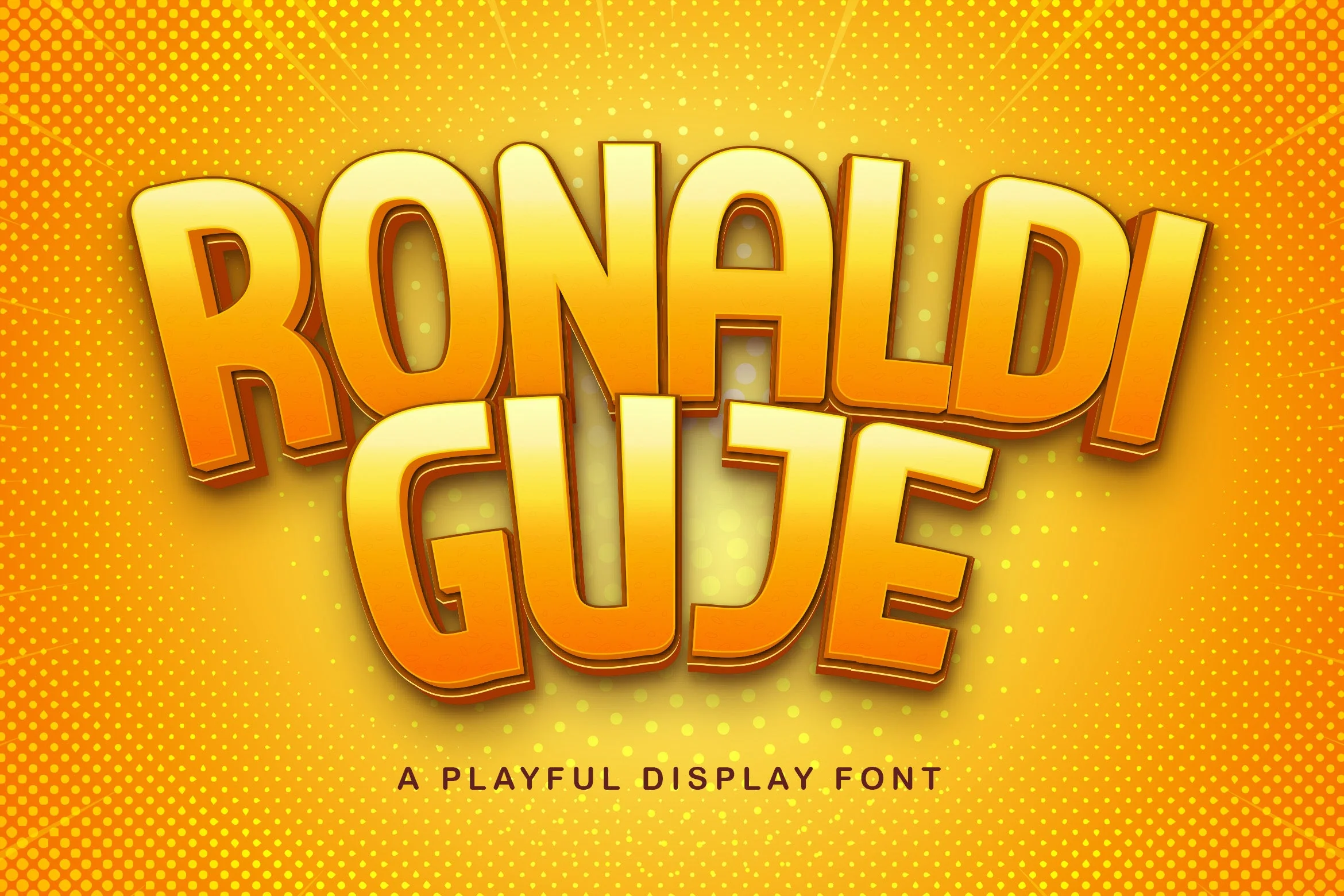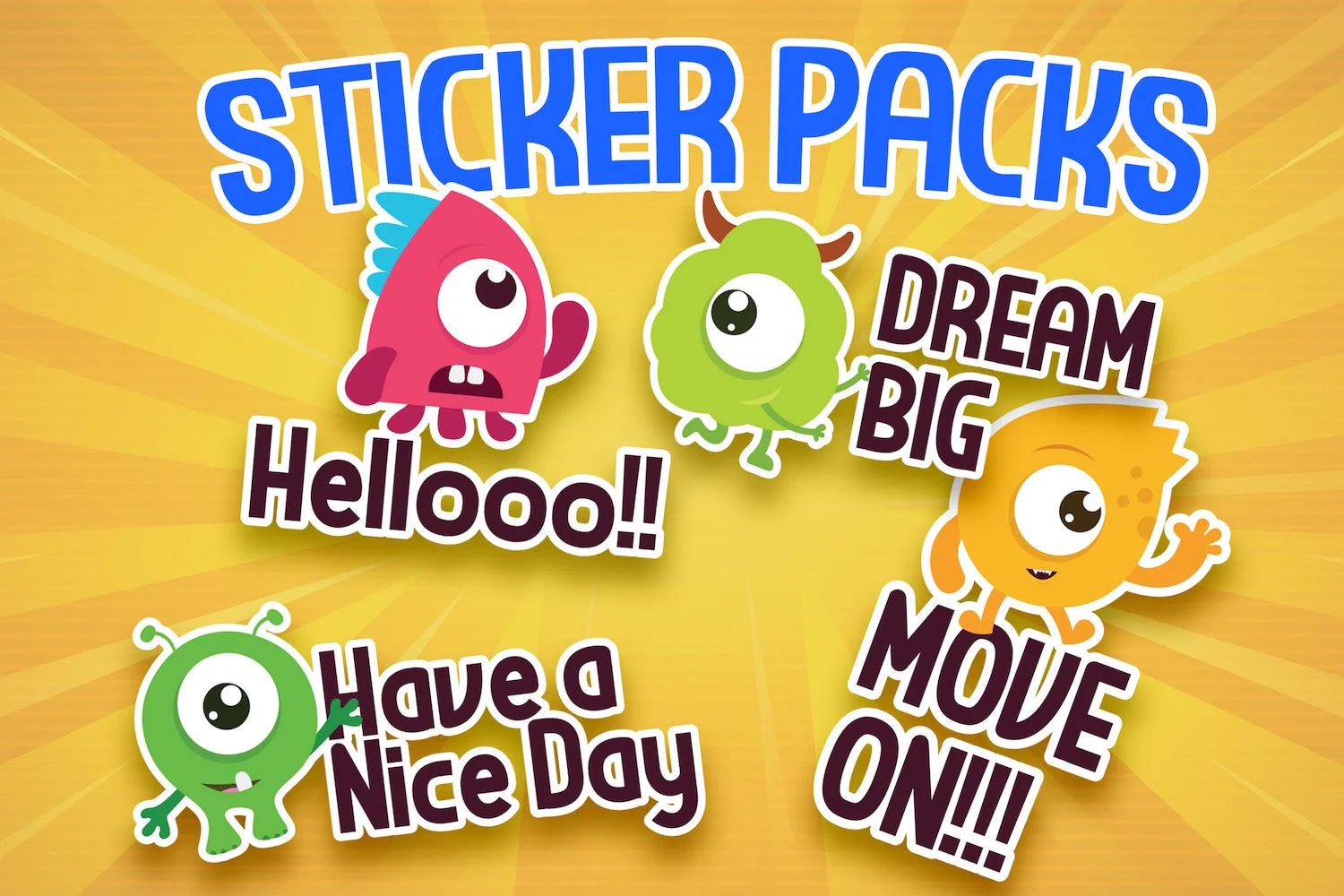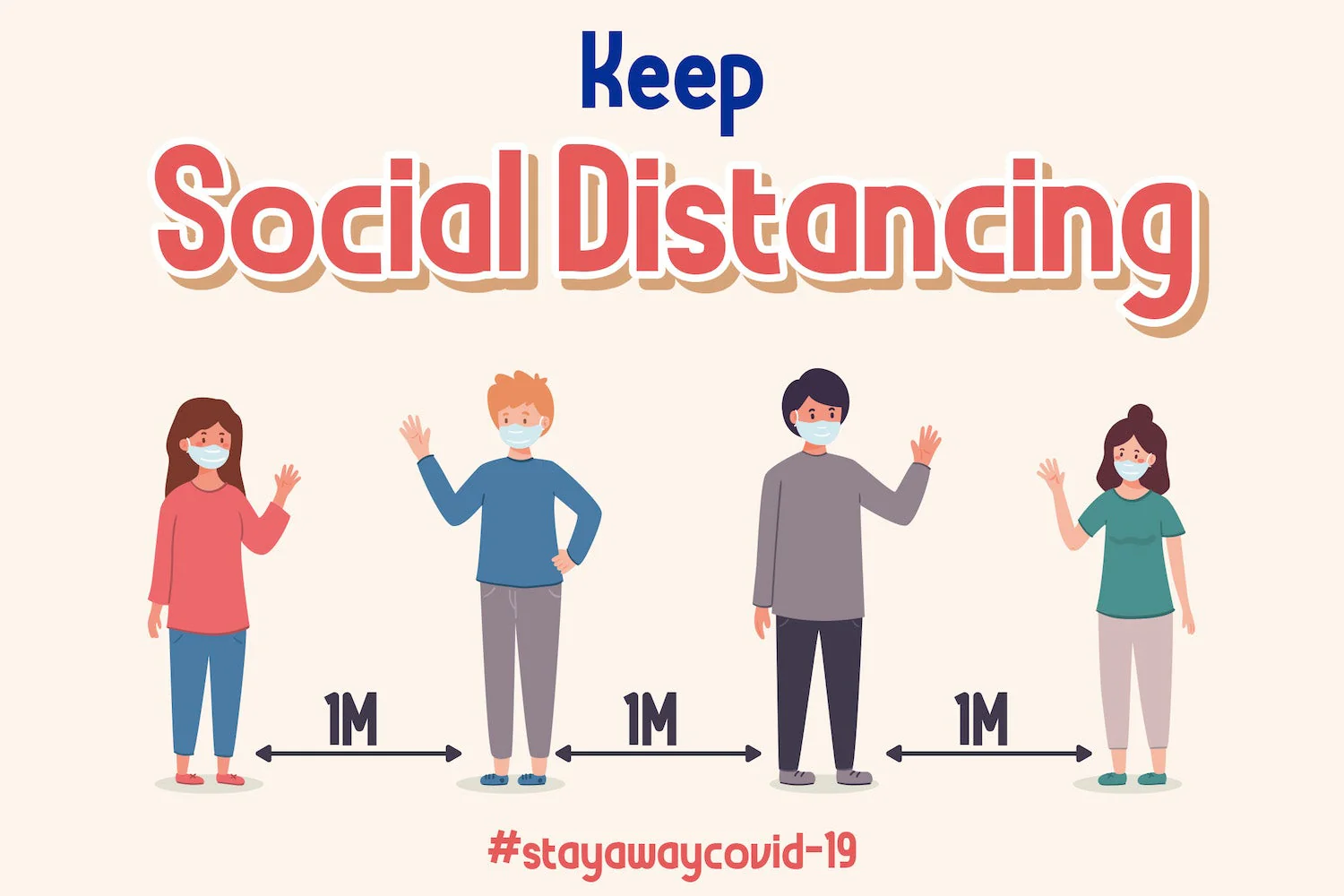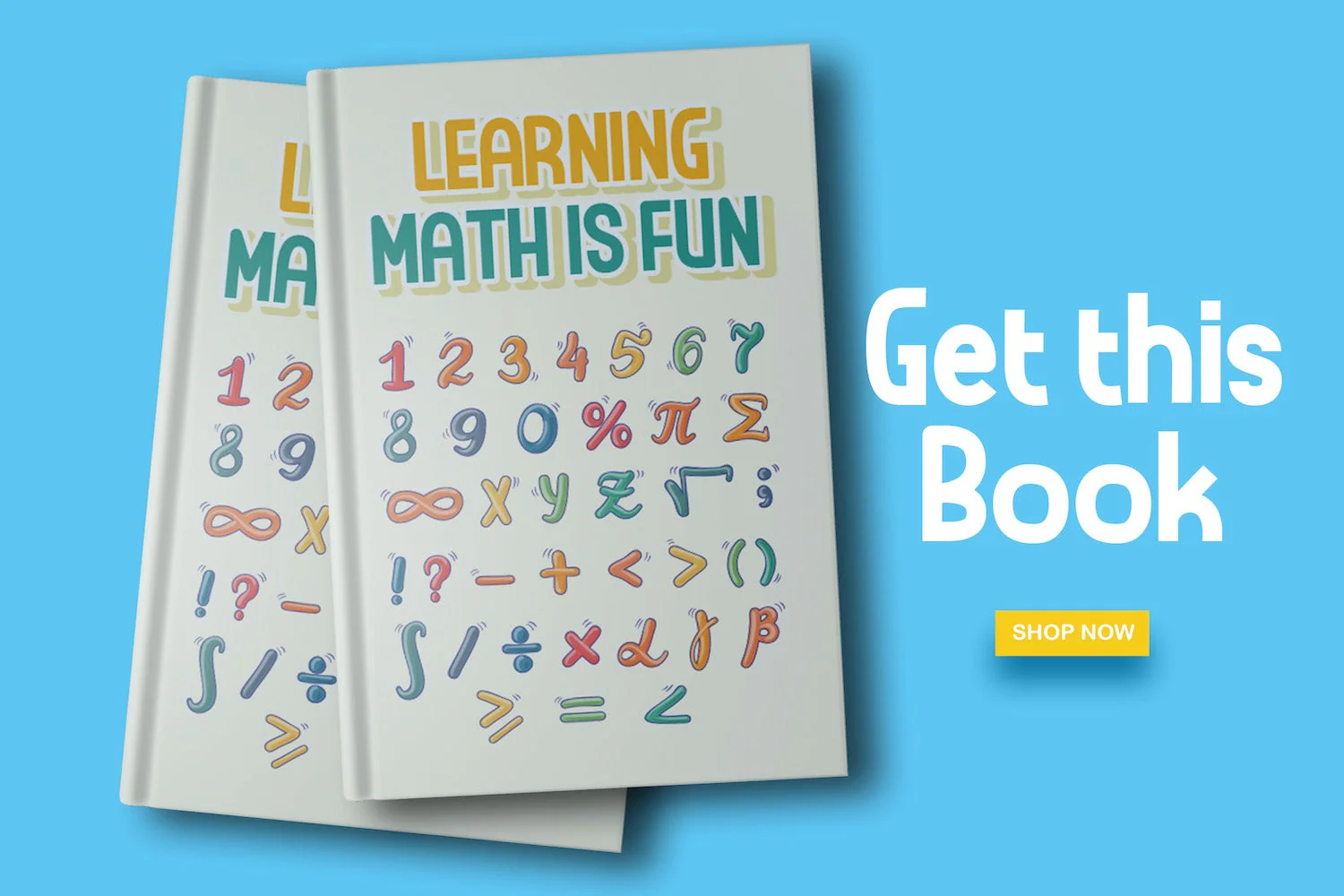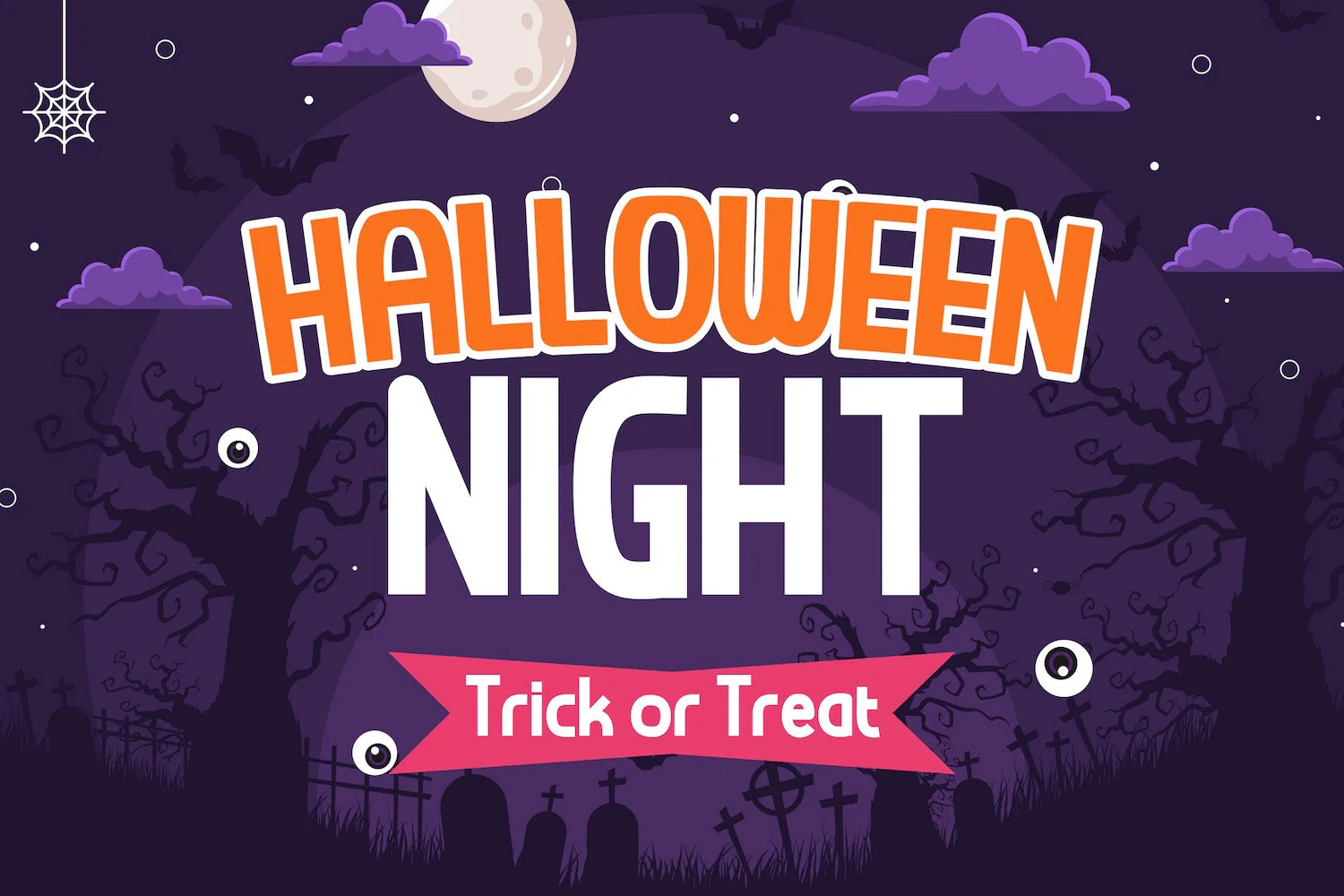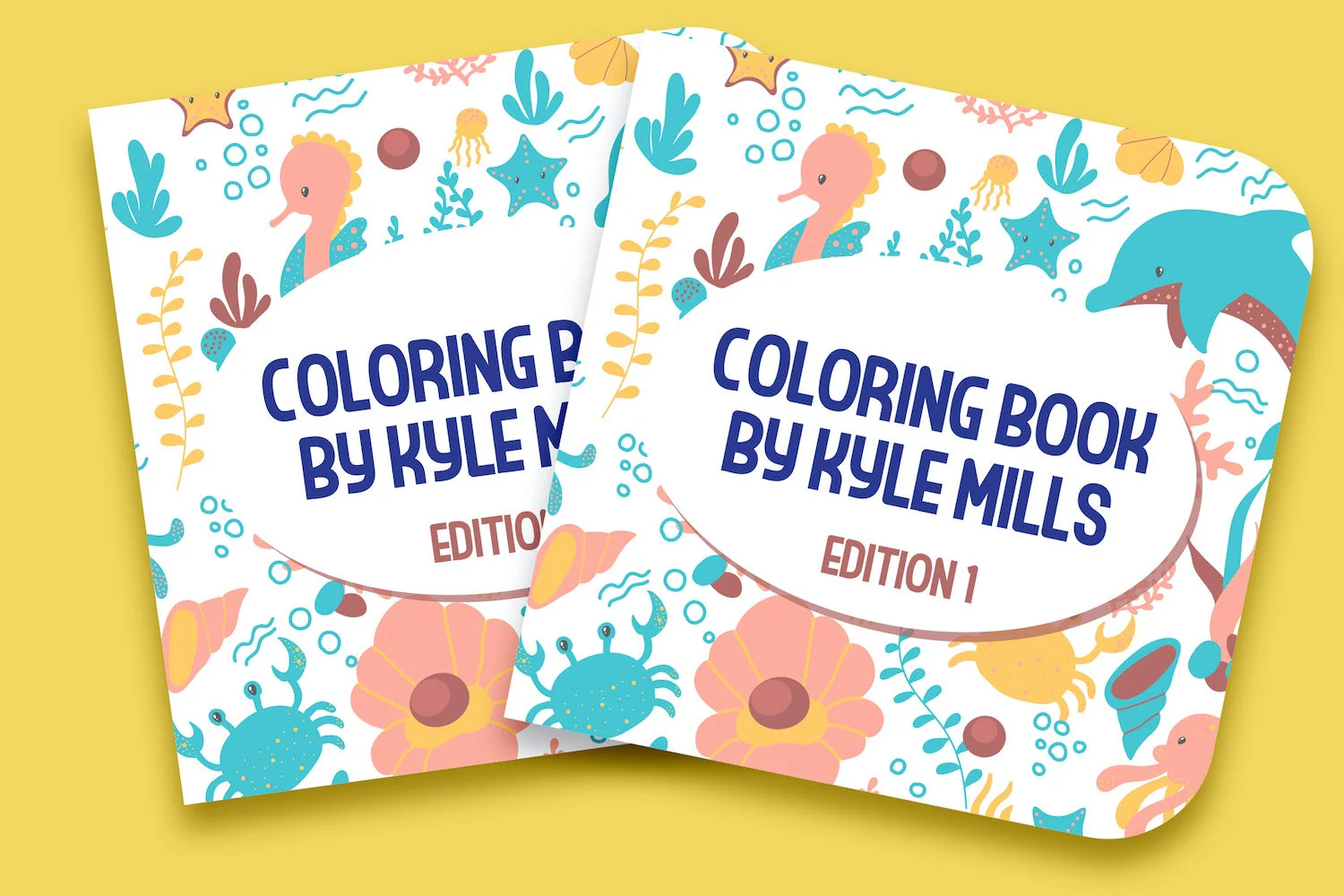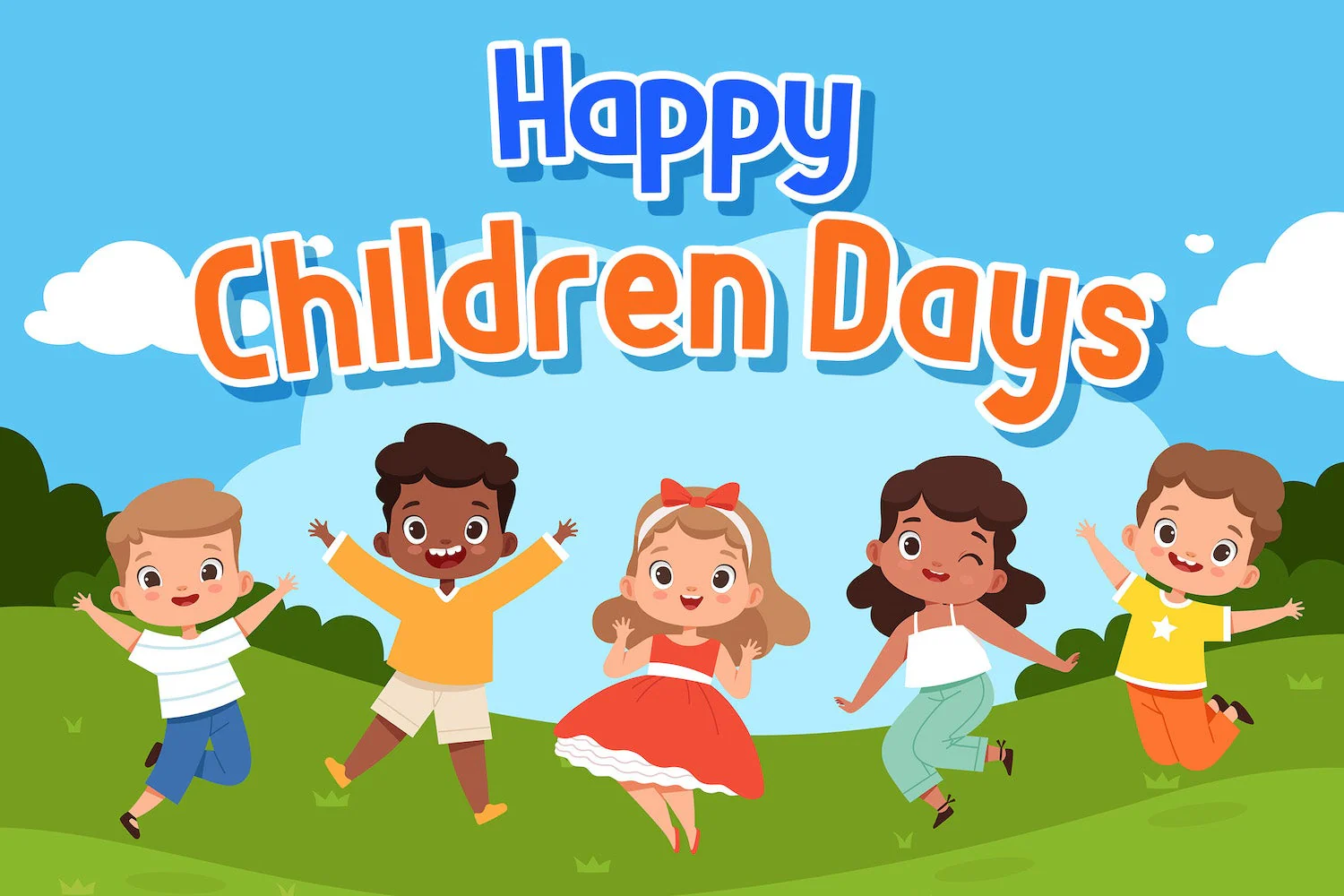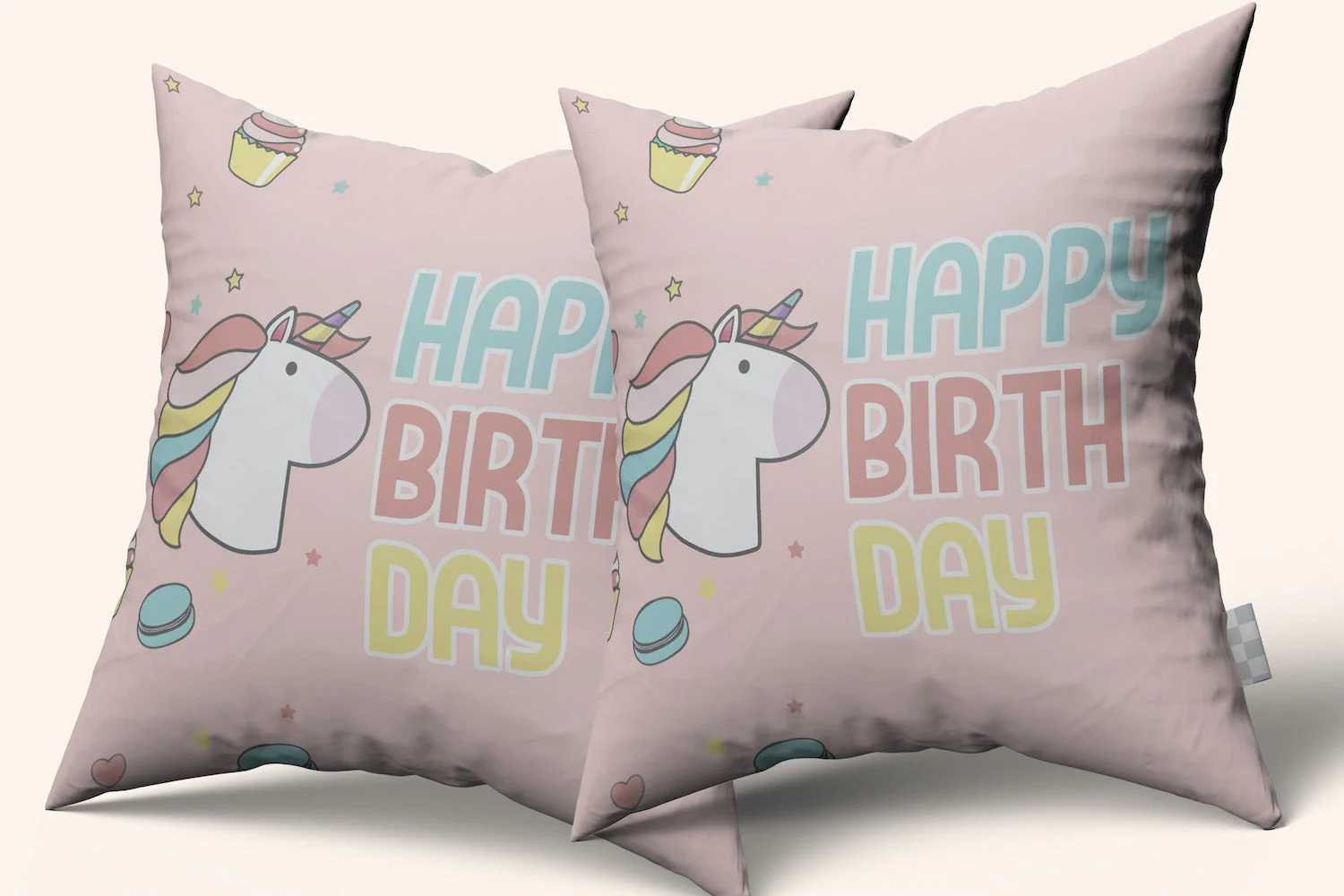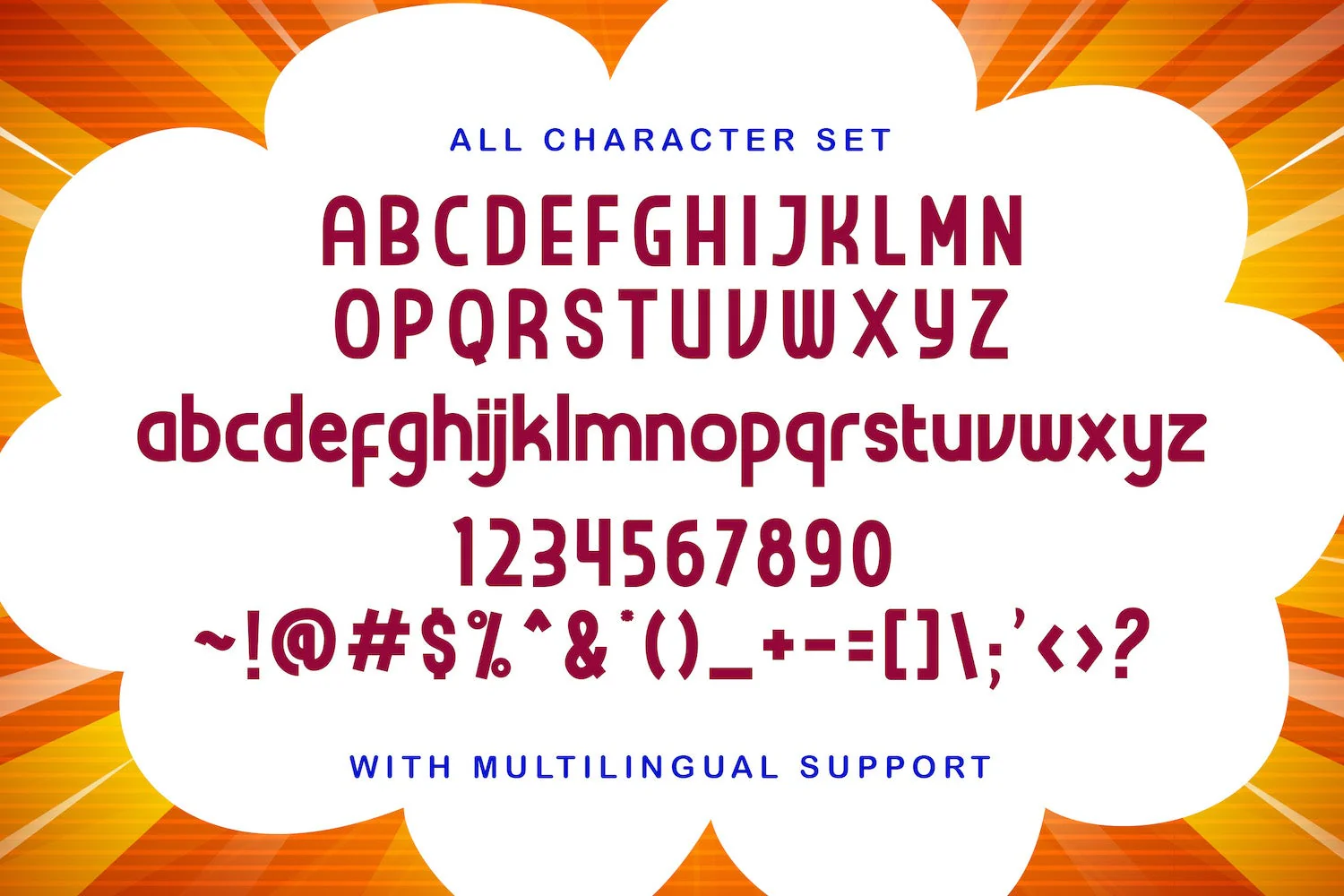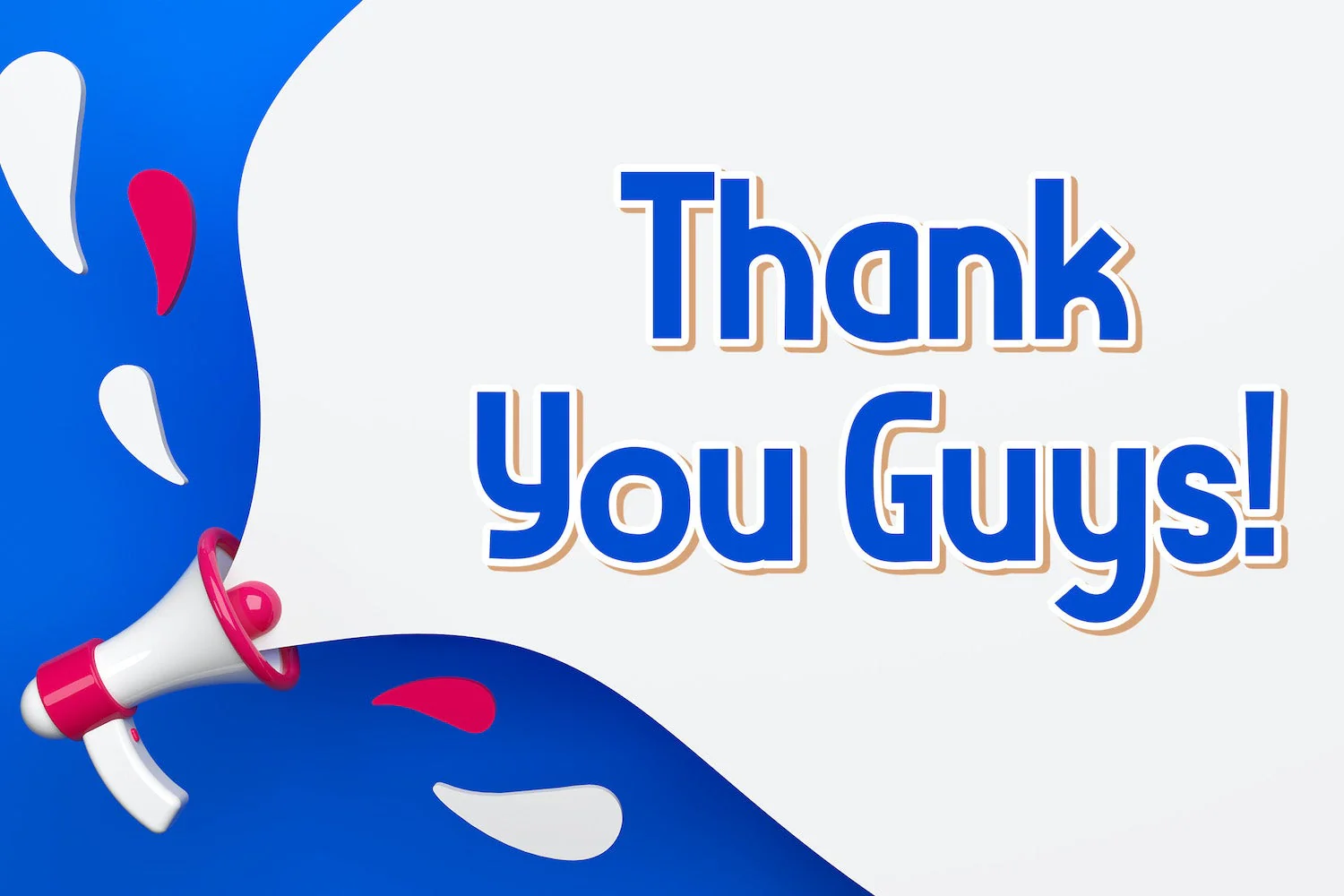
RONALDI GUJE - Display Sans Font
Introducing RONALDI GUJE - Display Sans Font
RONALDI GUJE is a modern and thick lettered display font. It will add a contemporary update to any design project you wish to create. On top of everything, it has a techno feel to it, making it ideal for titles, subtitles and UI.